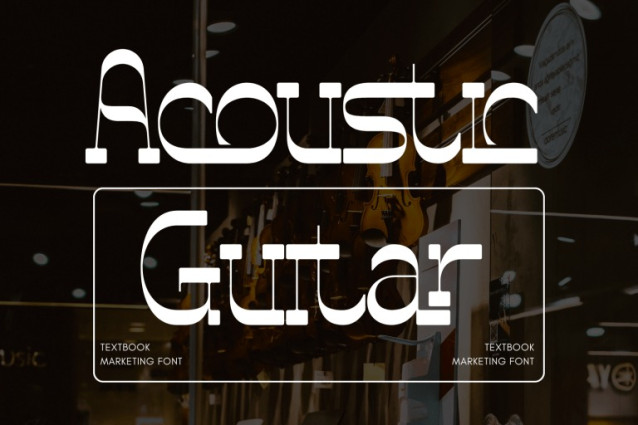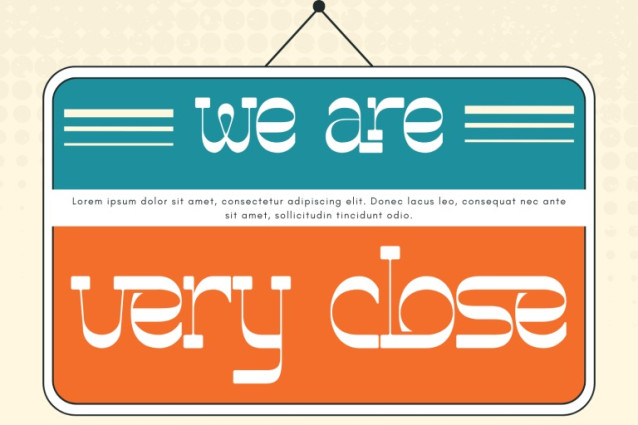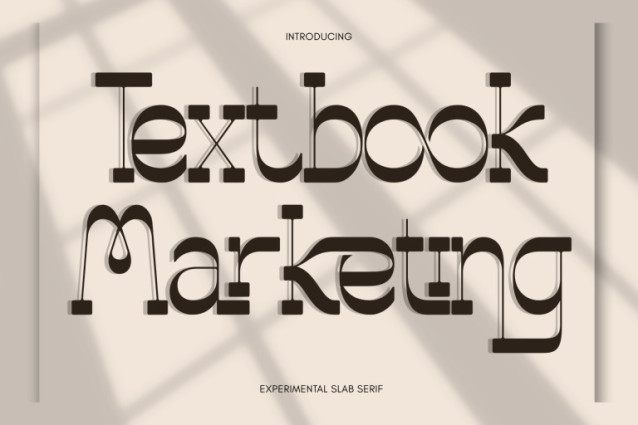
Textbook Marketing – Slab Serif Display Font is an experimental slab serif display font featuring a bold, modular, and highly distinctive typographic structure. The design combines strong slab serifs with unconventional proportions, thin connecting stems, and geometric construction, creating a modern reinterpretation of classic slab serif principles. This font stands out through its engineered appearance: heavy vertical strokes are balanced by rounded curves and precise slab terminals, while unique joints and connector details add a conceptual, almost mechanical feel. The contrast between solid forms and delicate linking elements gives Textbook Marketing a sophisticated yet playful personality.
🔤Features:
Uppercase & Lowercase Letters
Around 100 Special Ligatures & Alternates
Accented Characters for multilingual support
🔤About 100 ligatures combined with Stylistic Alternates Font: